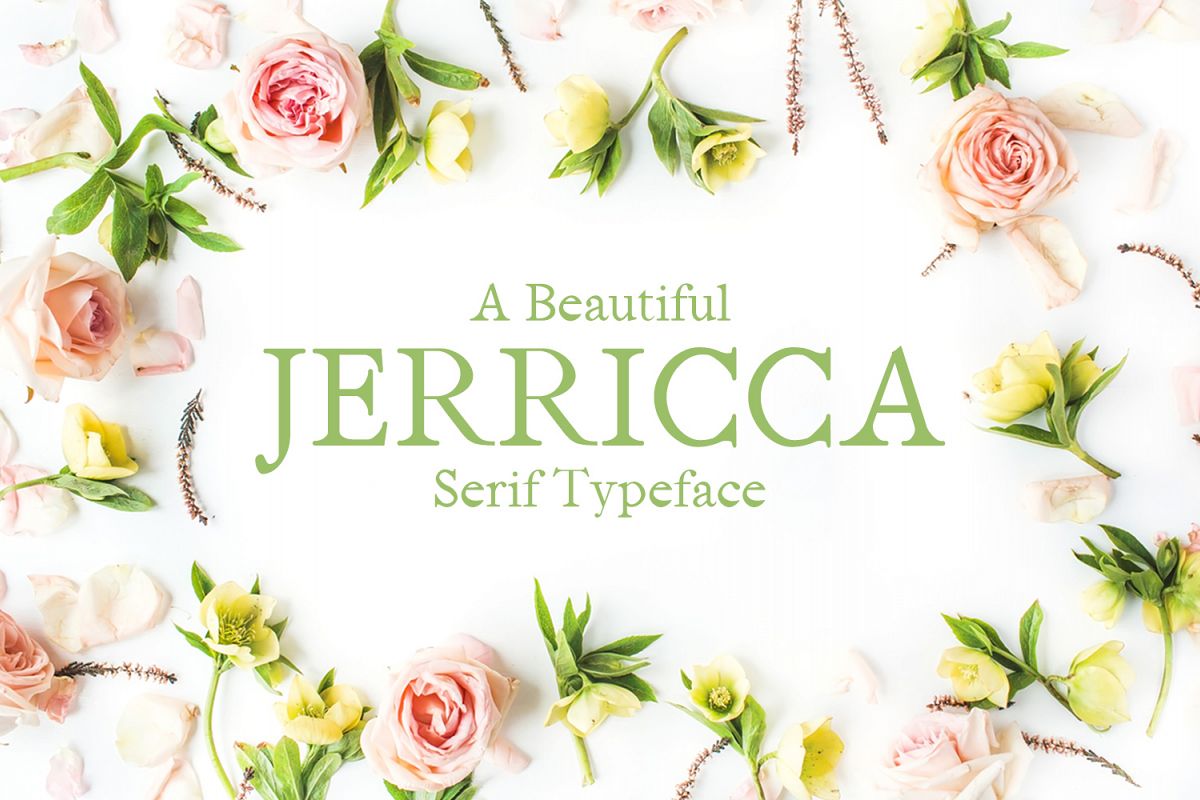
Jerricca Serif Typeface
Jerricca Serif Typeface is a simple serif font family, which contains 4 weights and It features unique and modern serif look and feel. Perfect for gorgeous logos, titles, web layouts and branding. It looks gorgeous in all caps with a wide-set spacing if you want to try a classy look, or beautiful on its own in capital and lowercase letters for something completely timeless.
• Font Weight: Regular, Thin, Light and Distorted
Jerricca Font Features:
• Uppercase Multilingual Letters
• Lowercase Multilingual Letters
• Alternative